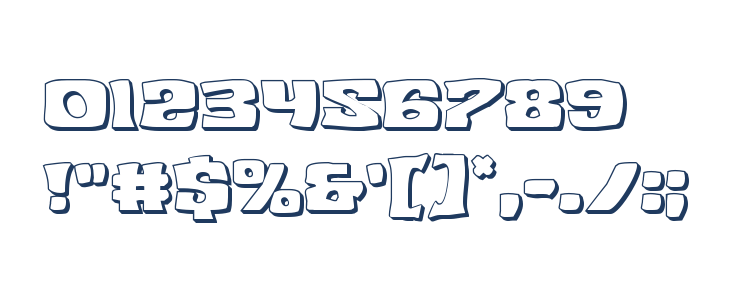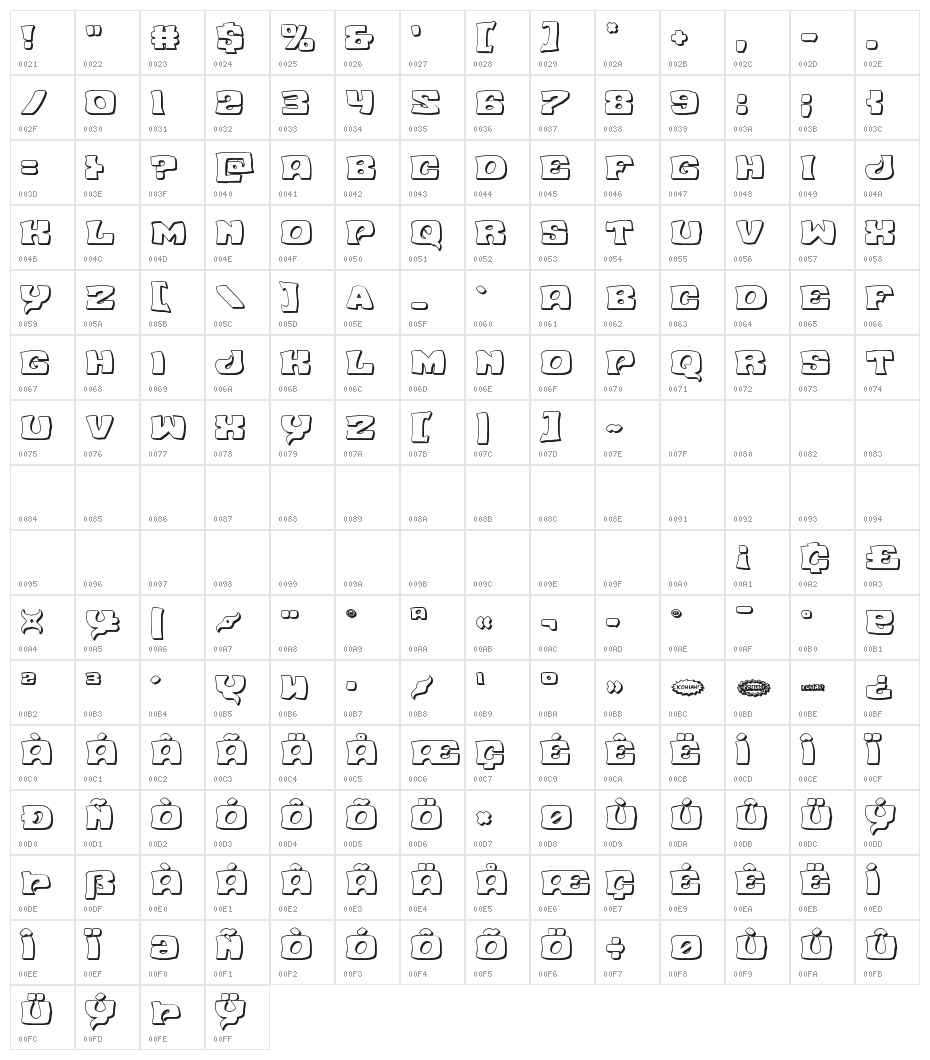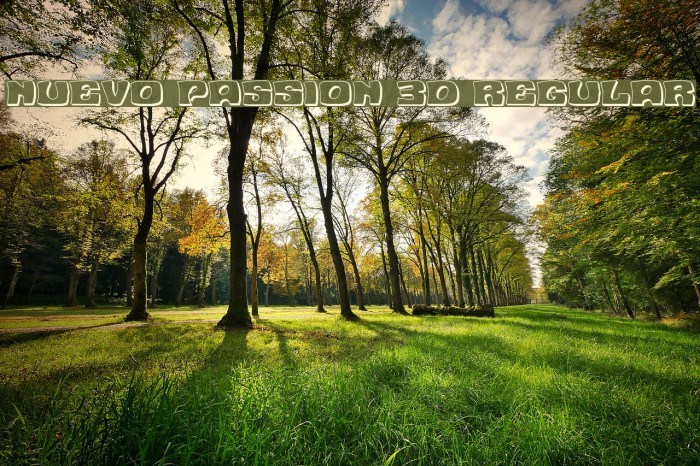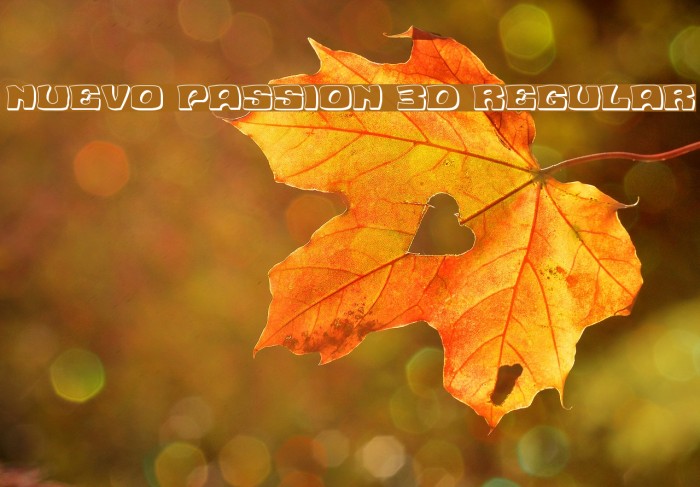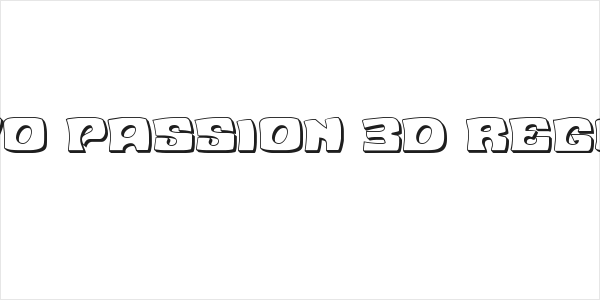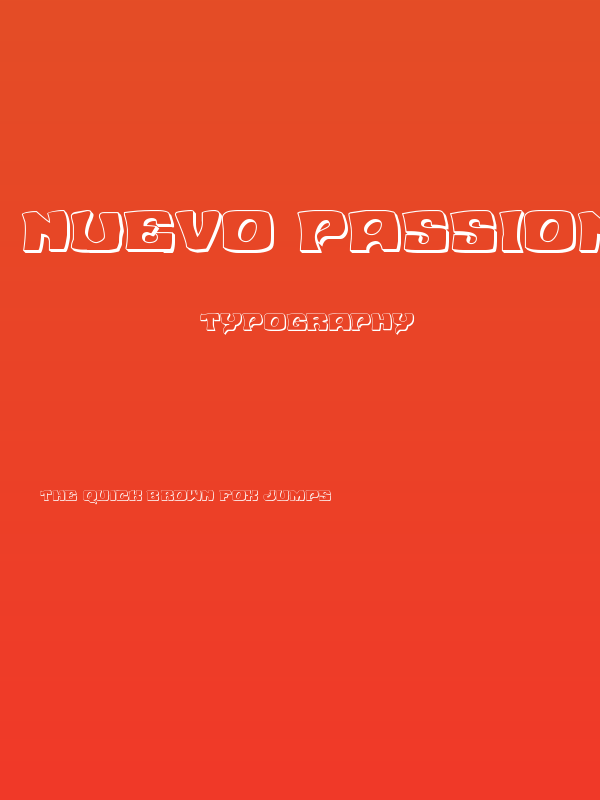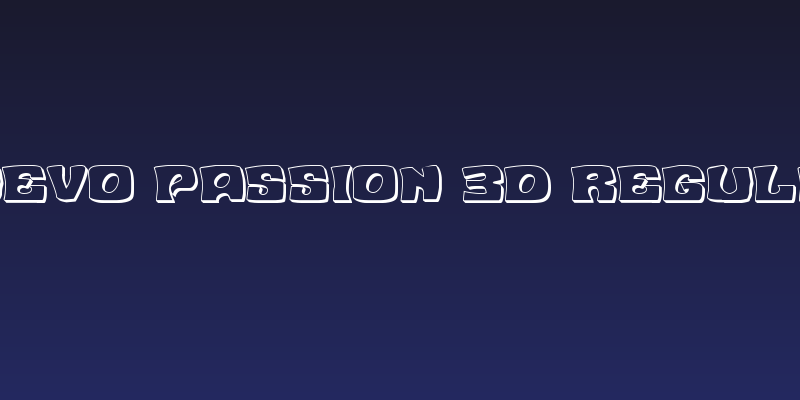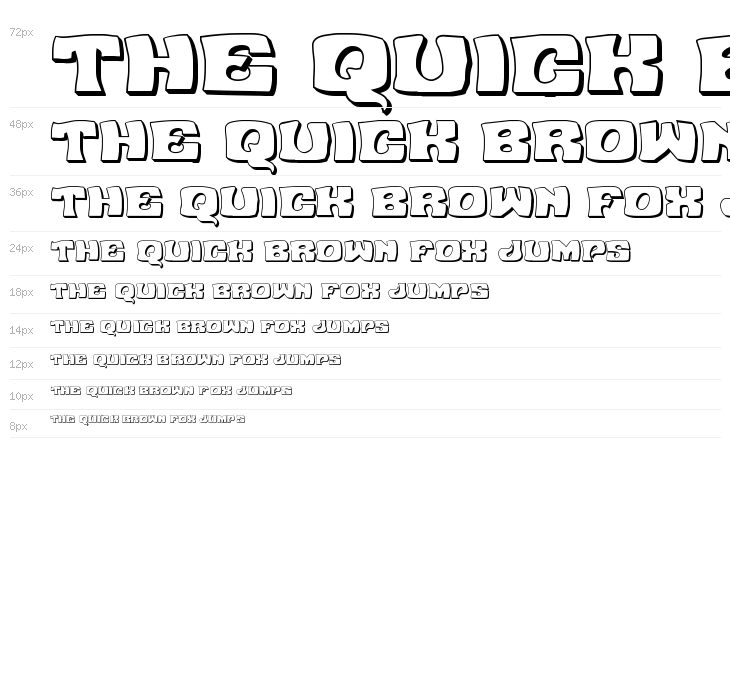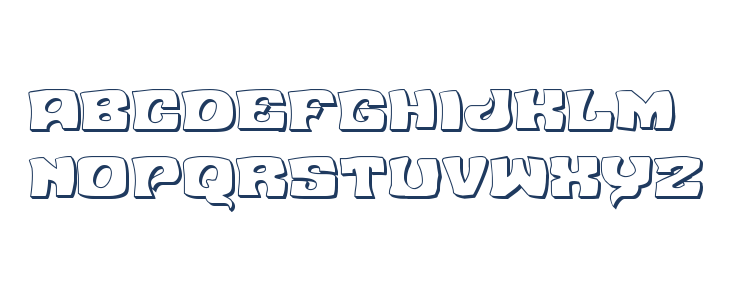
Nuevo Passion 3D Regular Font
Nuevo Passion 3D Regular Description
This font features a bold, three-dimensional appearance with a playful and dynamic style. The characters are outlined, giving them a cartoonish and eye-catching look. Each letter and number is designed with a consistent thickness, enhancing the 3D effect. The font maintains a uniform height across all characters, providing a balanced and cohesive appearance. The special characters are crafted with the same attention to detail, ensuring they integrate seamlessly with the alphanumeric characters. This font is ideal for projects that require a fun and engaging visual impact.
| Overall Style | Playful and Cartoonish |
| Proposed Projects | Ideal for comic books, children's books, posters, and playful branding. |